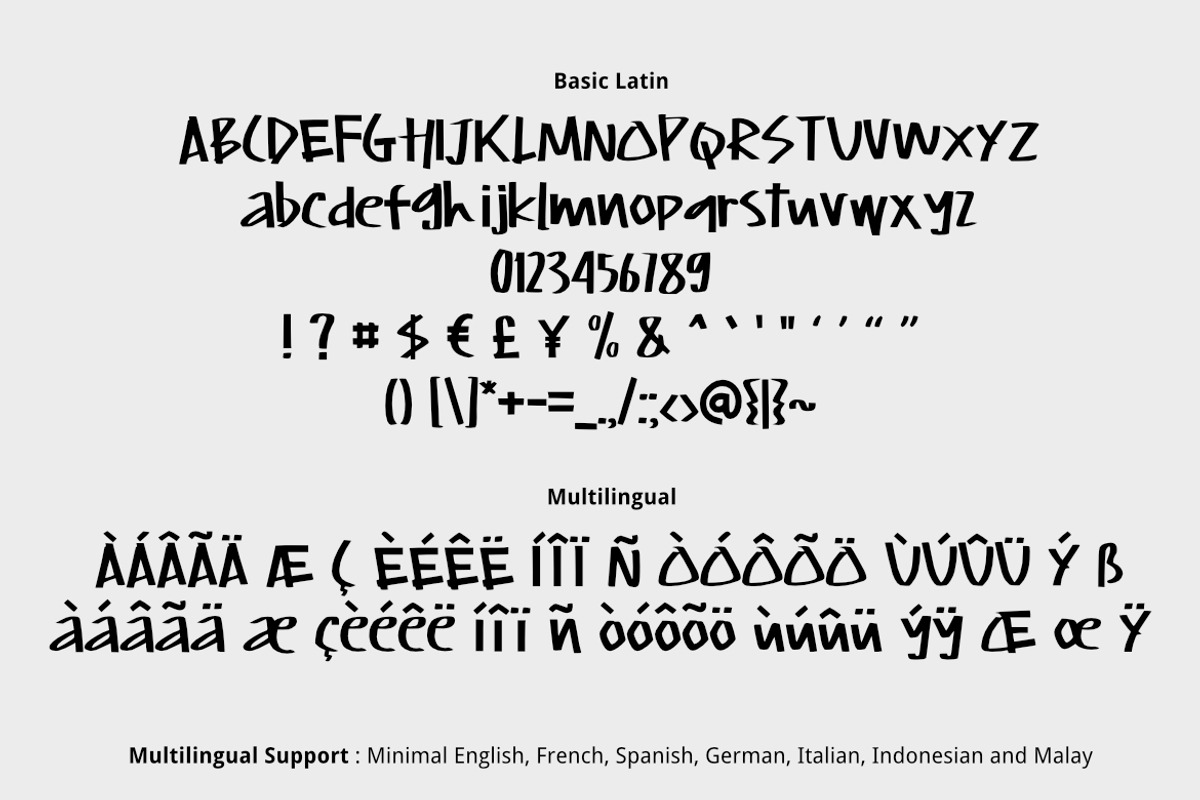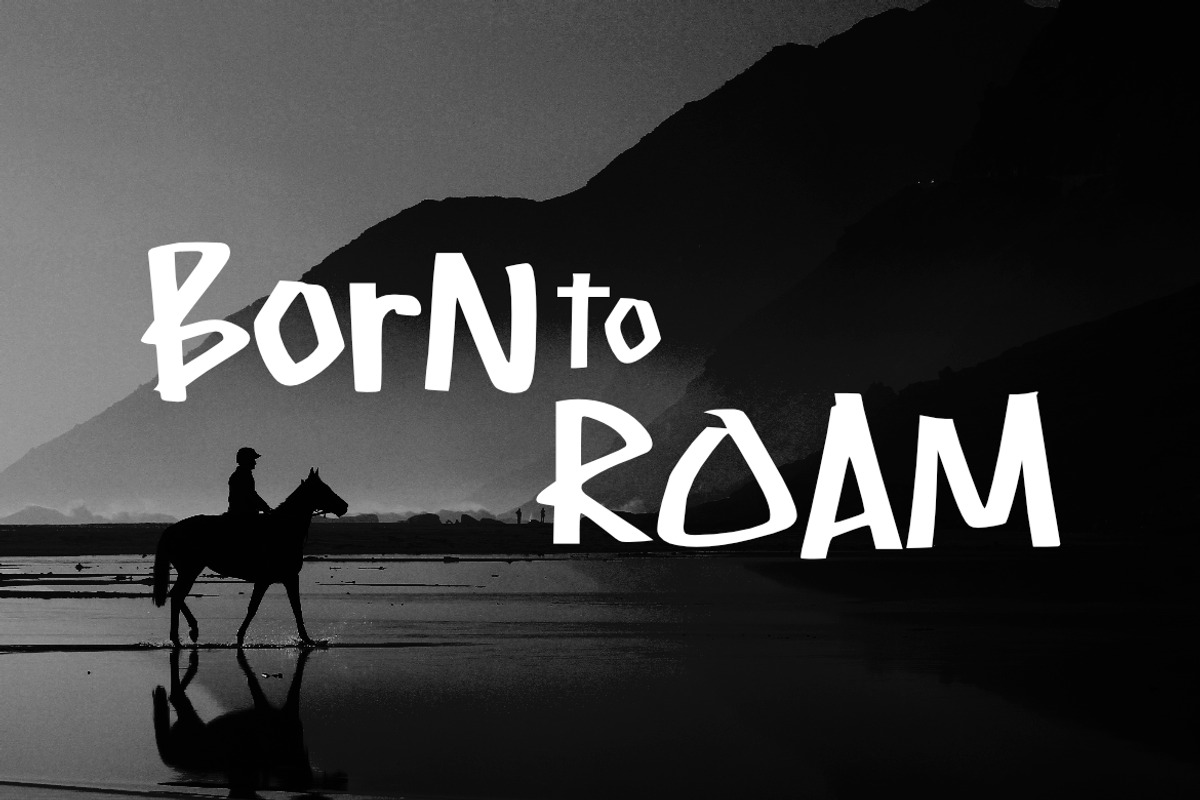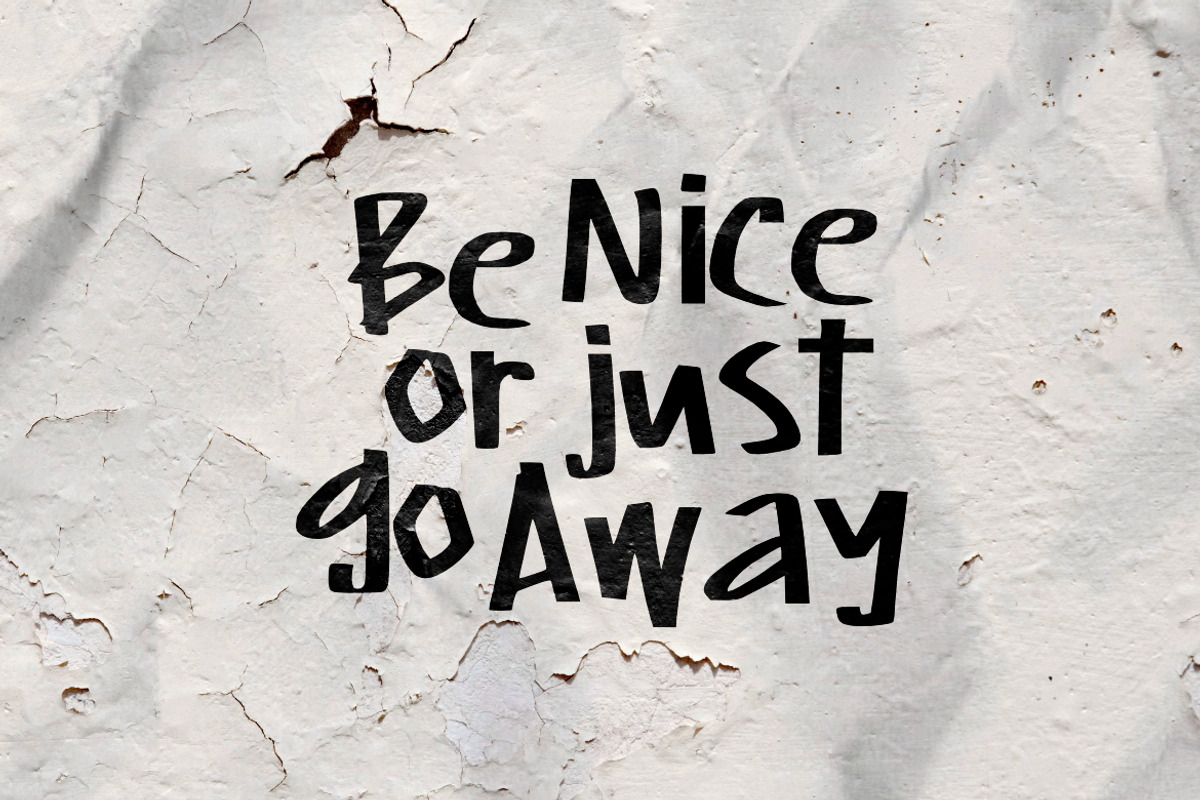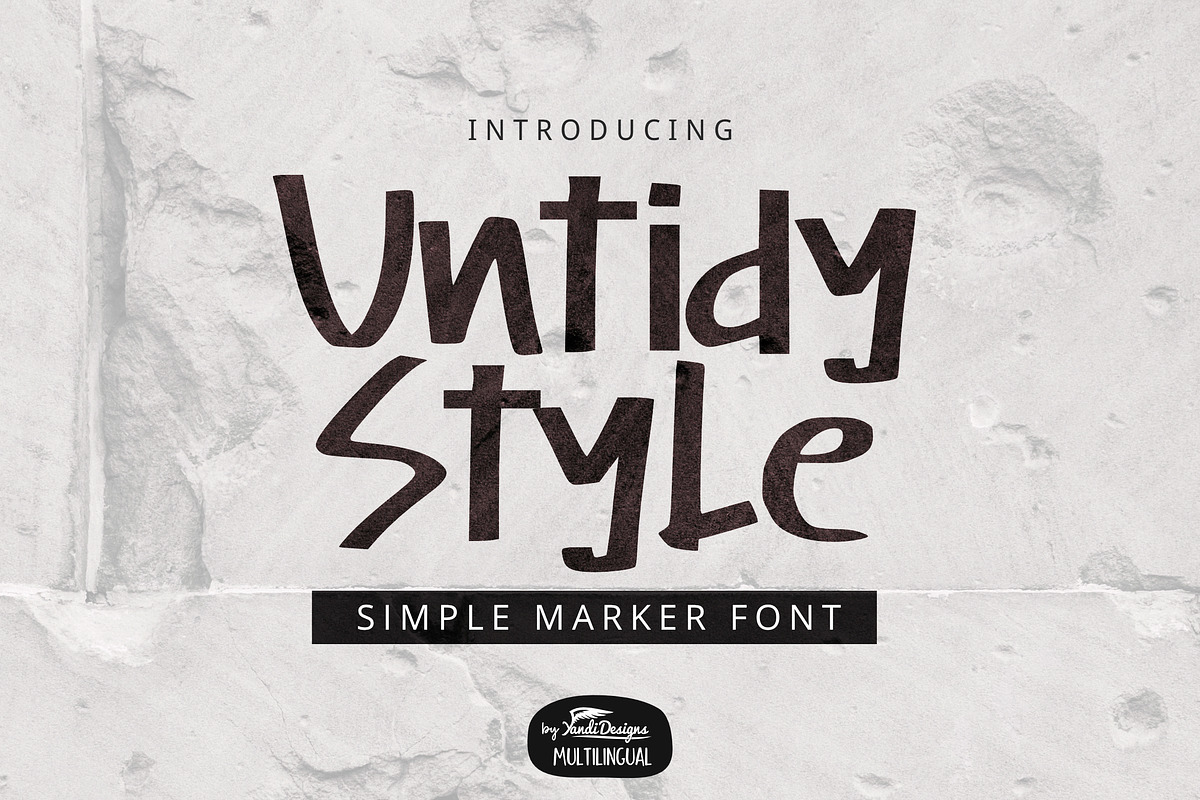
Untidy Style Font
Untidy Style Font is simple marker multipurpose handmade font, suitable for many project children book, quotes, logo , heading , title etc.
Multilingual Support (minimal English, French, Spanish, German, Italian, Indonesian, Malay)
Untidy Style Font by YandiDesigns fits naturally into Branding, posters, packaging, typography.